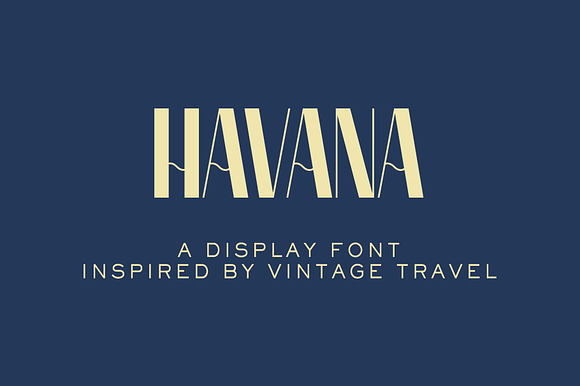
Havana Display Font
Just close your eyes and picture it: A yellow vintage Cadillac cruises down the street at a slow Sunday pace. That faint, sweet smell of cigar wafts on by dragging your attention to the sun setting over the beach. It’s 1950, in pre-revolutionary Havana, Cuba. The romantic, tropical getaway that attracts lovers and adventurers alike. Rhythmic drumming from bongos at a nearby salsa bar reach you. There’s a sultry heat here that makes mojitos on the beach a daily necessity.
This is Havana; an original san-serif display typeface that’s inspired by vintage travel. It was born out a collaborative effort between Kathie Baptista ( and Ronald Ferree ( Havana exhibits a smooth combination of both hairline and thick strokes; creating a bold, retro style. Now, let your mind drift away to the sound of the palm trees swaying in the breeze, and the crashing of the seas.